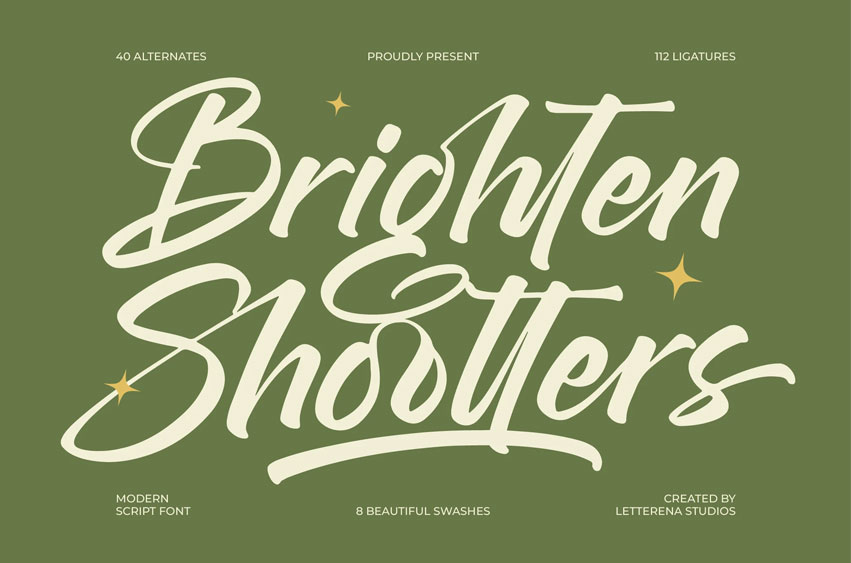
Brighten Shootters Font
Brighten Shootters Font is suitable to complement your digital and printed creative products. This font is perfect for posters, social media posts, branding, personal projects, etc.